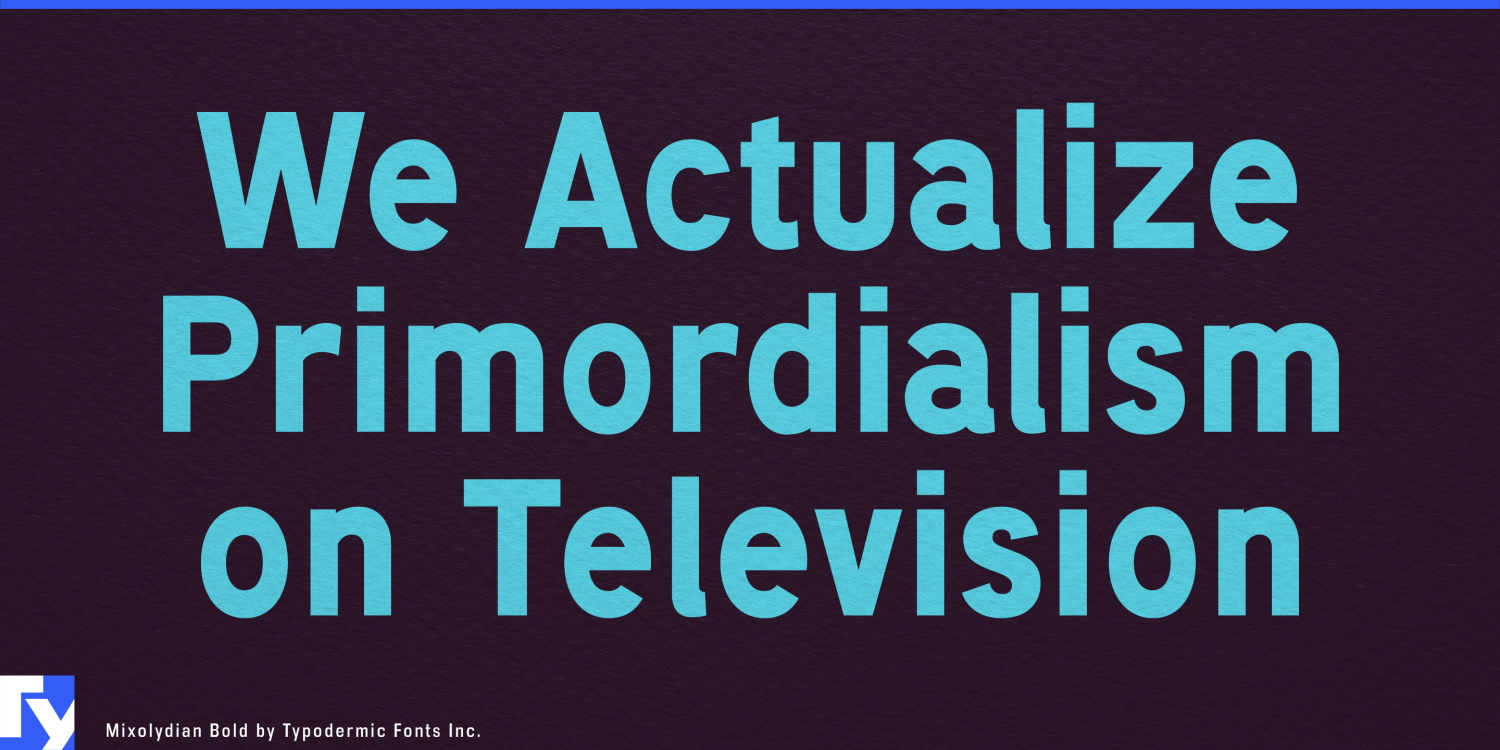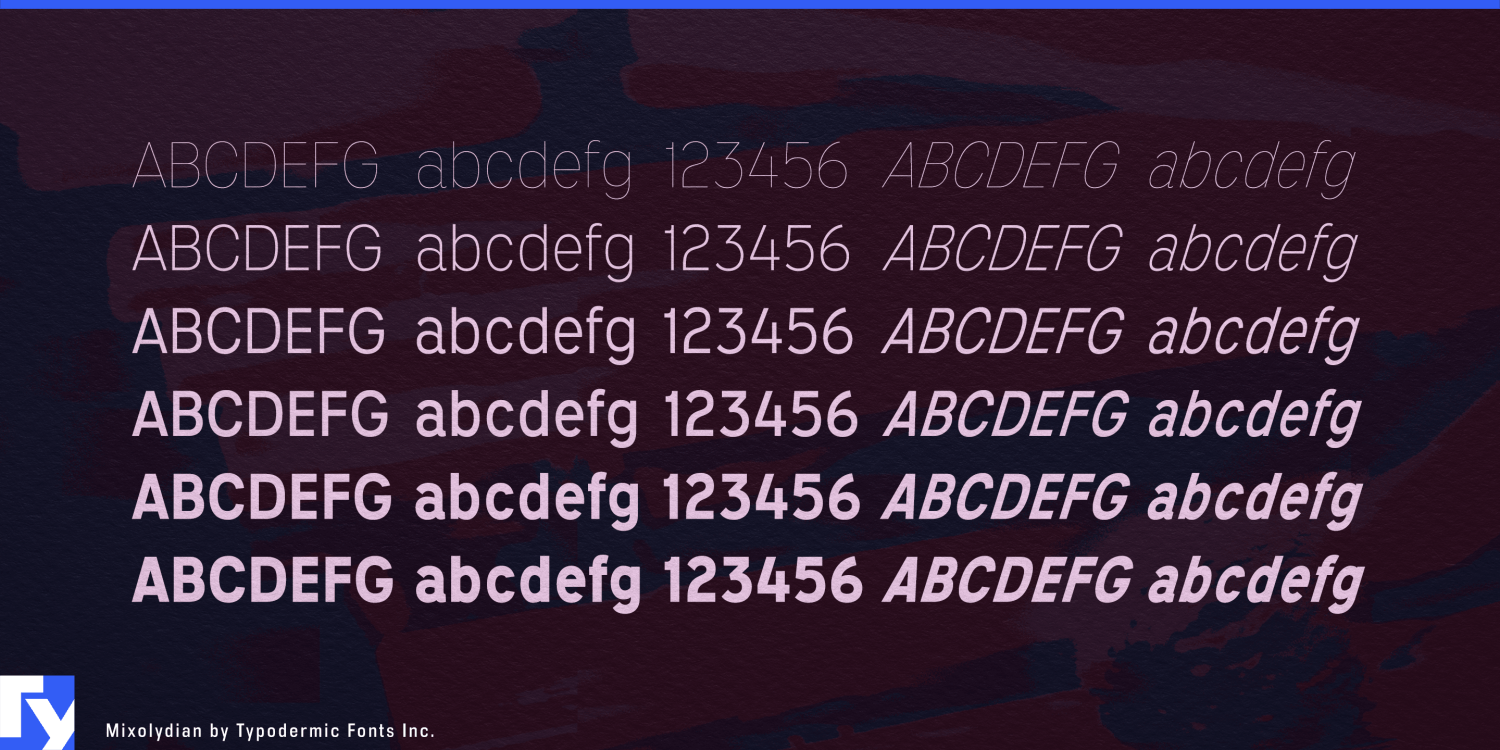
About Mixolydian
Ladies and gentlemen, prepare yourselves for Mixolydian—the sans-serif typeface that’s about as pretty as a punch in the gut, but twice as effective. This isn’t your grandma’s fancy script or your hipster cousin’s trendy…